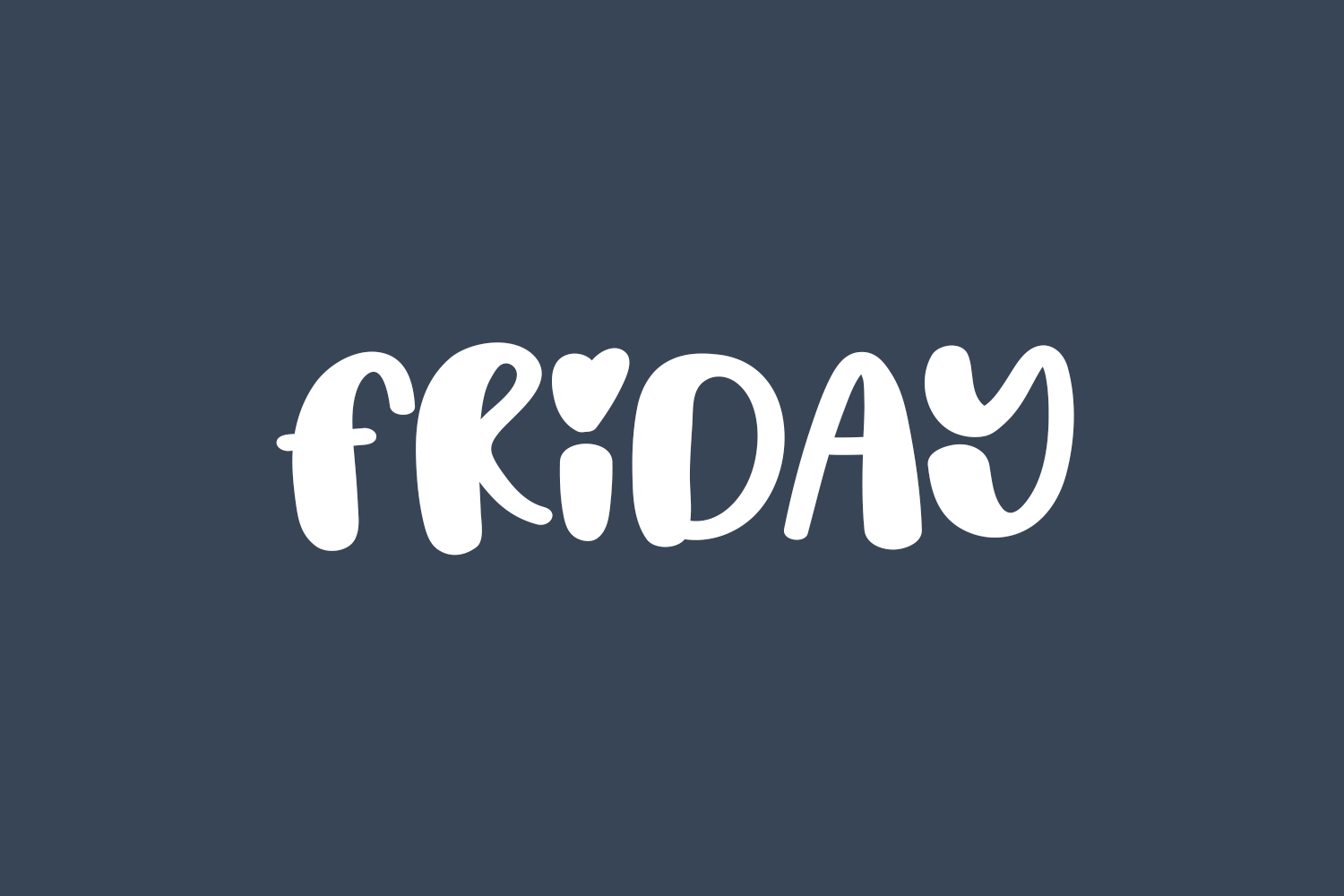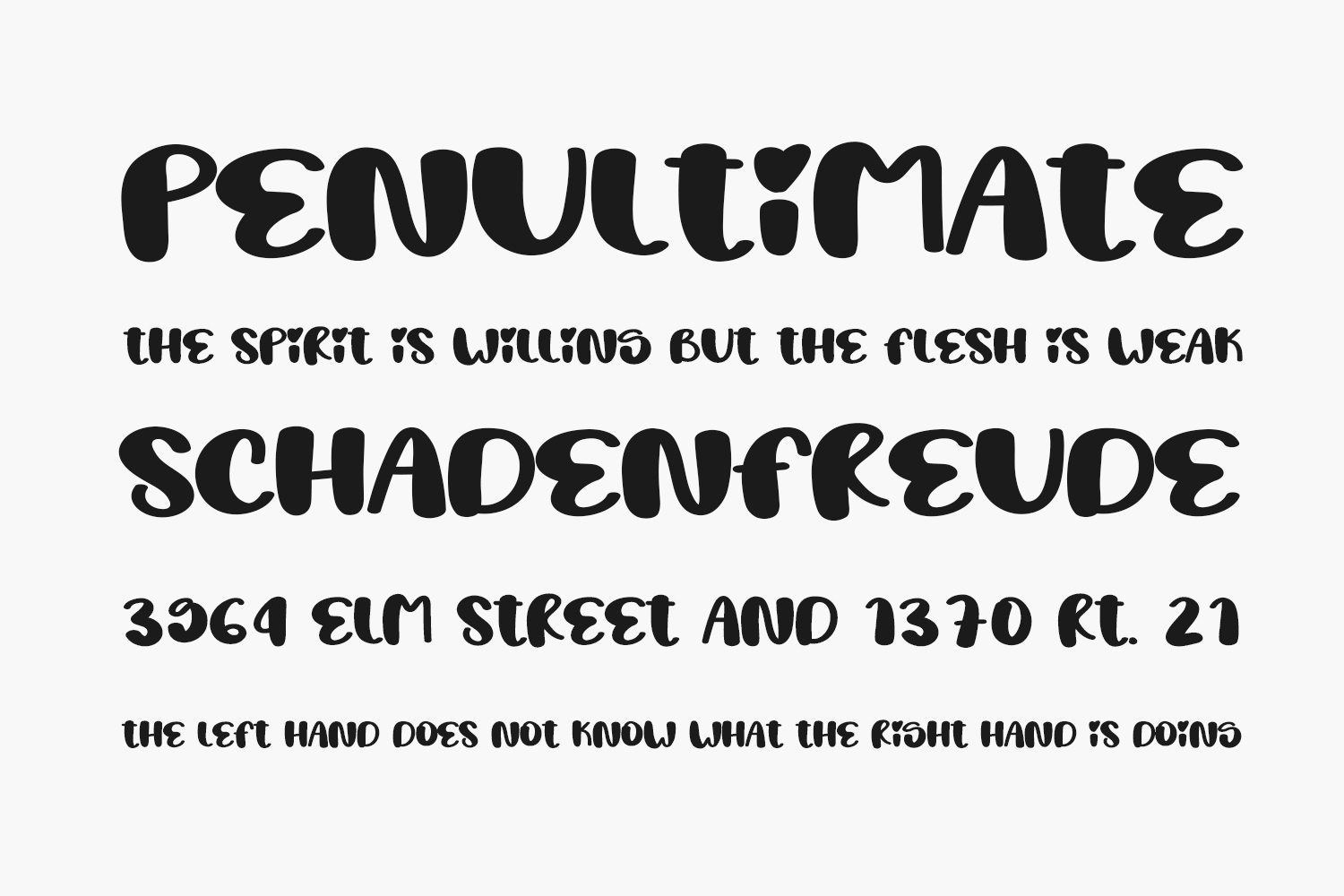
Friday Free Font is a robust and thick typeface designed to infuse your designs with a playful and lively spirit. Ideal for a wide range of branding and packaging projects, this chubby font strikes the right balance between fun and creativity, captivating attention with charming heart-shaped dots. Friday Free Font is free for personal use only. Please purchase the full version for commercial use.
Designed by Scratchones